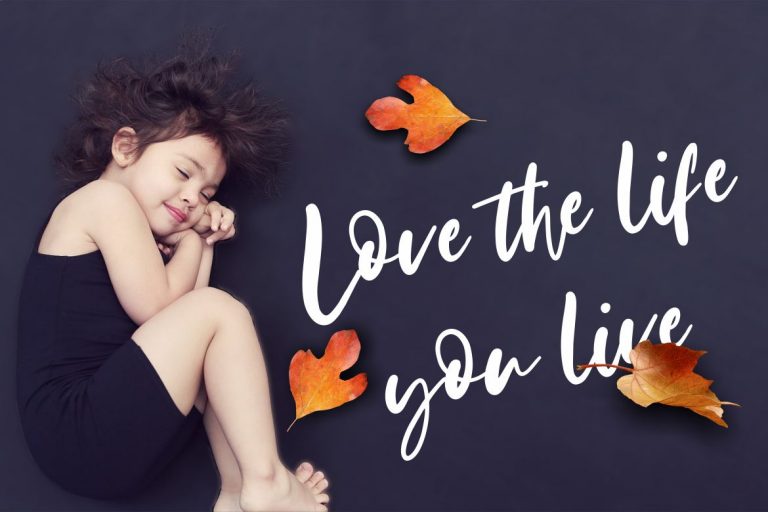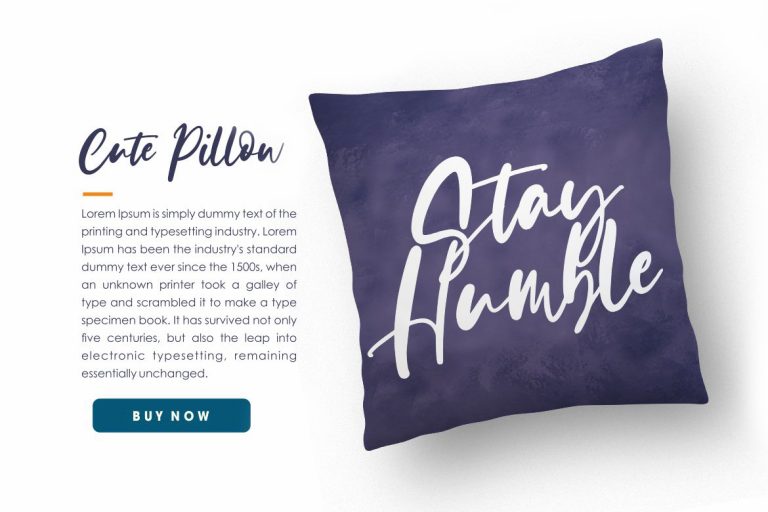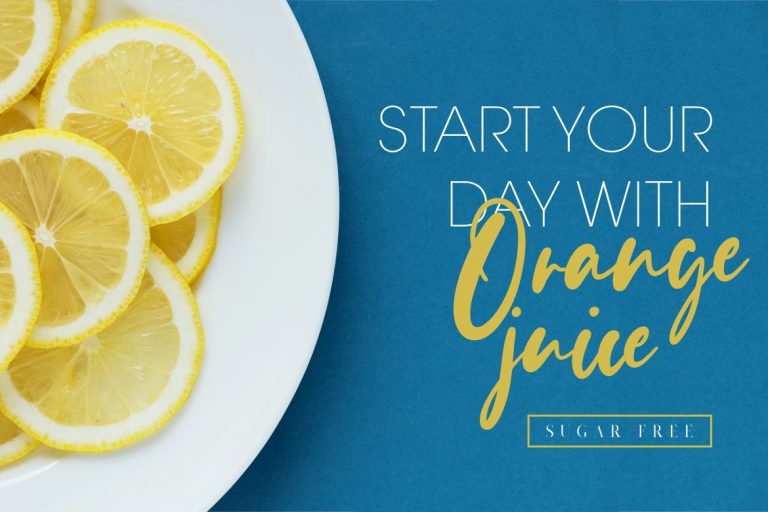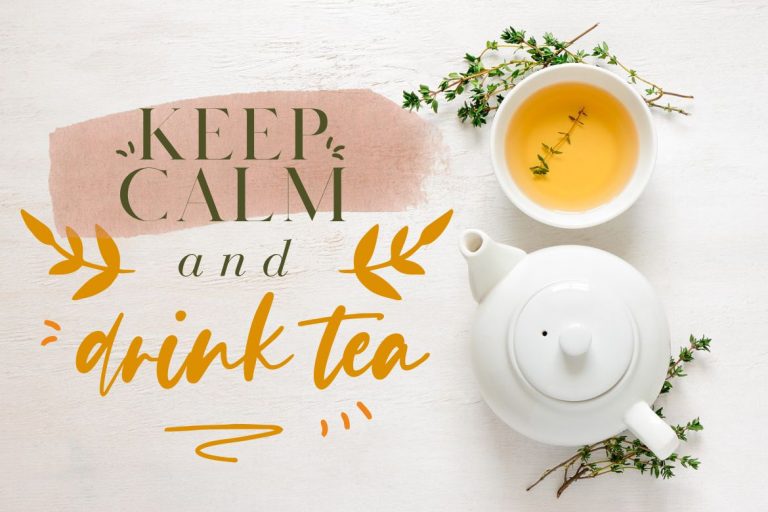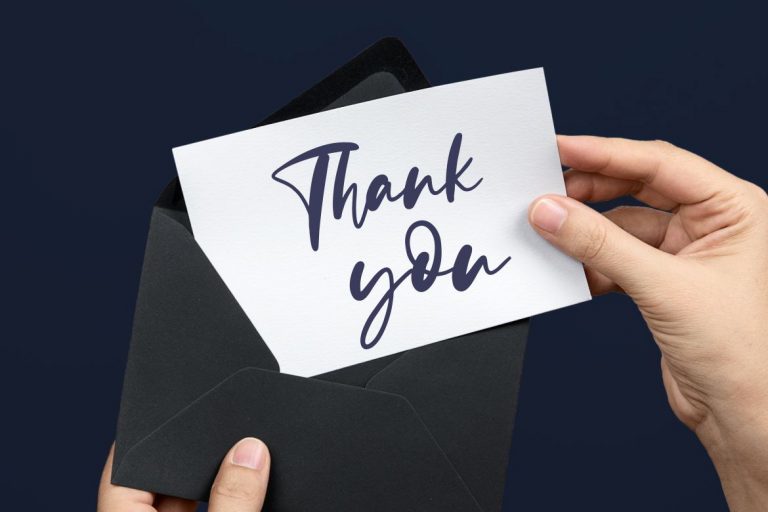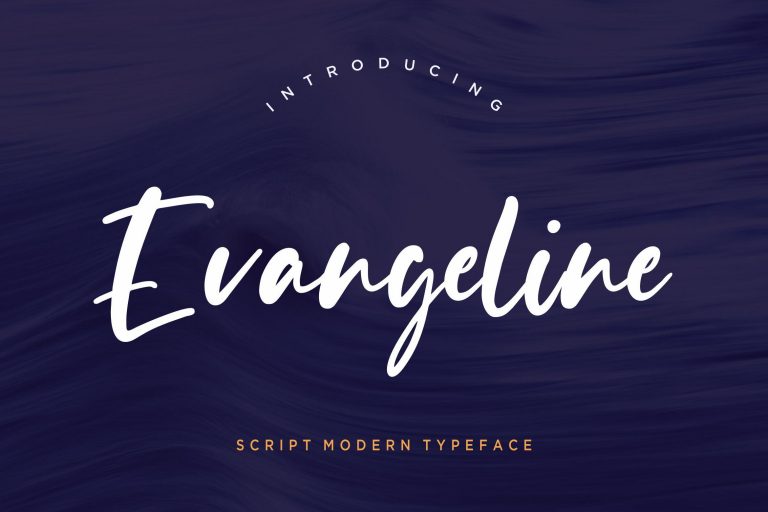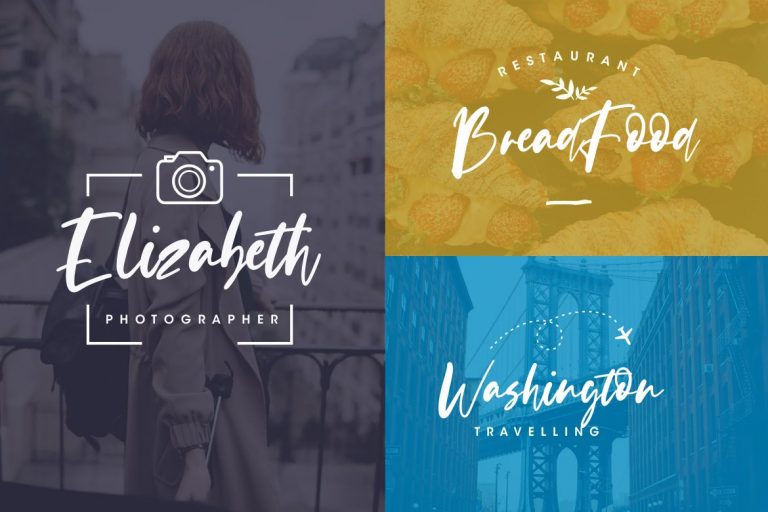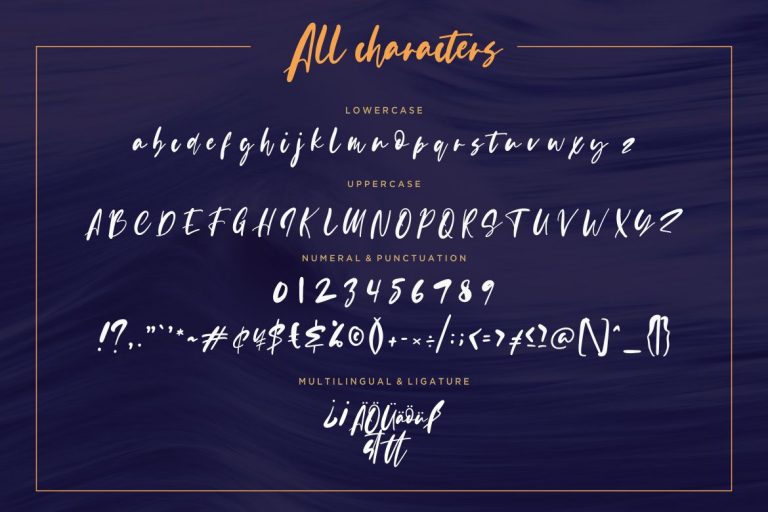
Evangeline Modern Script is a beautiful, modern script font make this font looks natural, elegant, and perfect for any awesome projects.
Evangeline Modern Script is perfect for branding projects, logo, wedding designs, social media posts, advertisements, product packaging, product designs, label, photography, watermark, invitation, stationery and any projects that need handwriting taste.
• Standard glyphs
• Ligature
• Fonts include multilingual support for; ä ö ü Ä Ö Ü ß ¿ ¡
Evangeline Modern Script